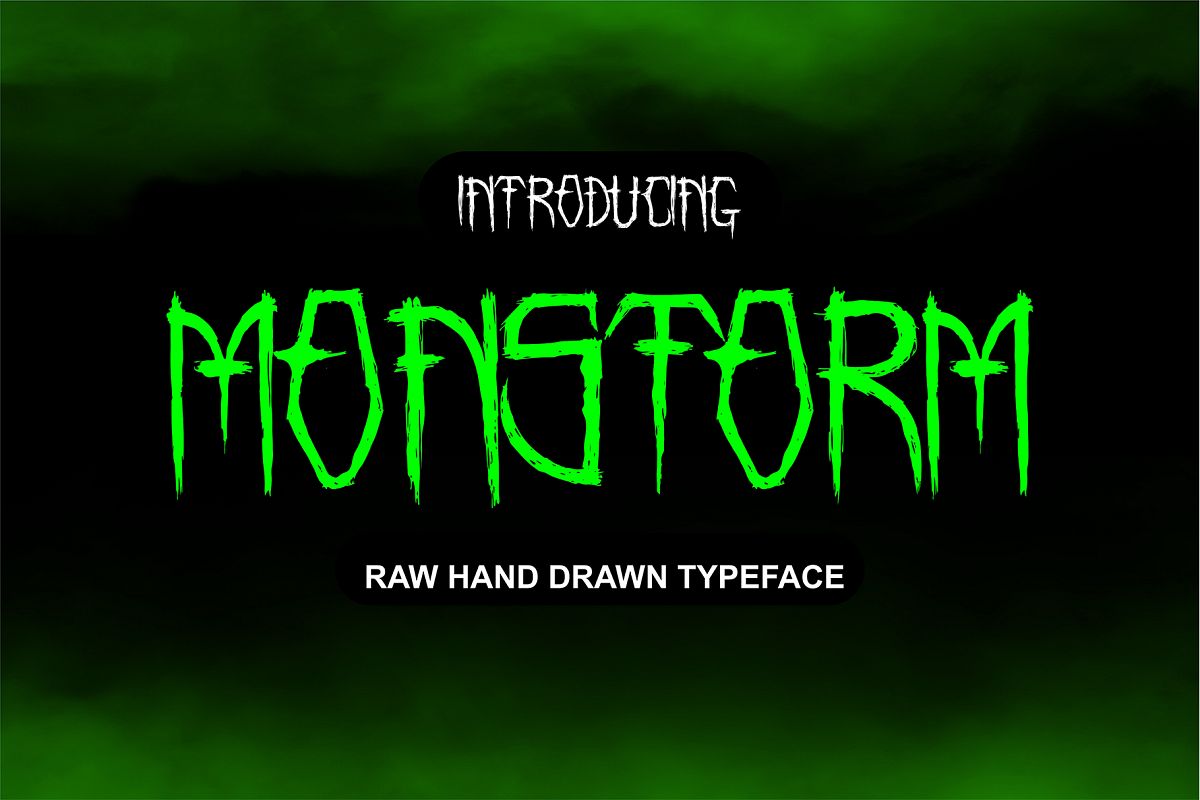
Monstorm
Introducing, Monstorm!! very suitable for logos, clothing, branding and others. very easy to use without the hassle of drawing, just by purchasing this font you can immediately use it for all your needs.
Monstorm